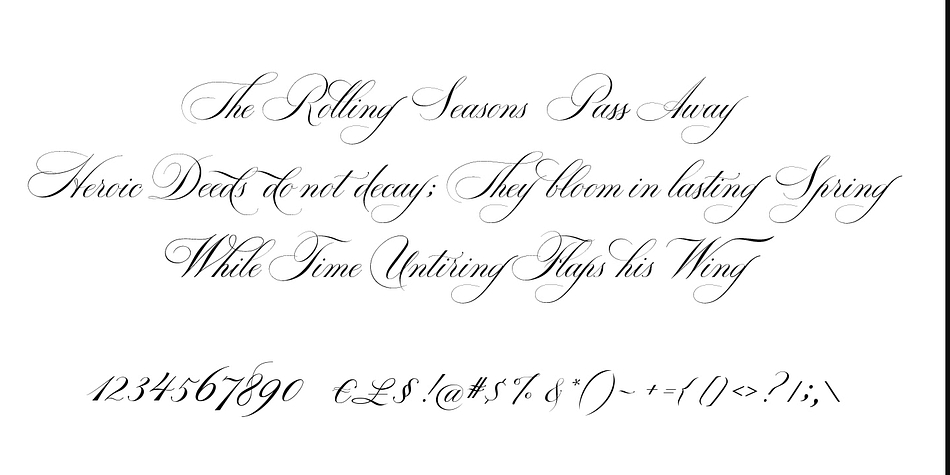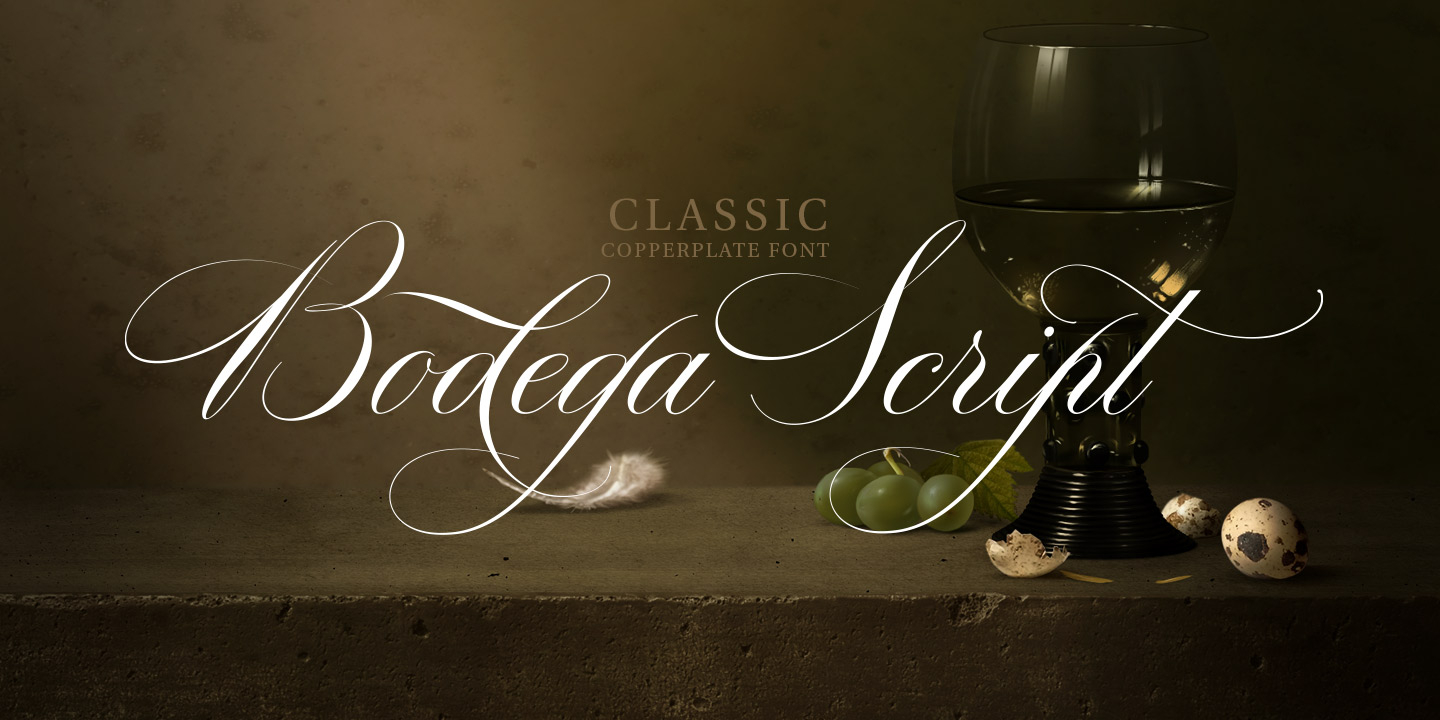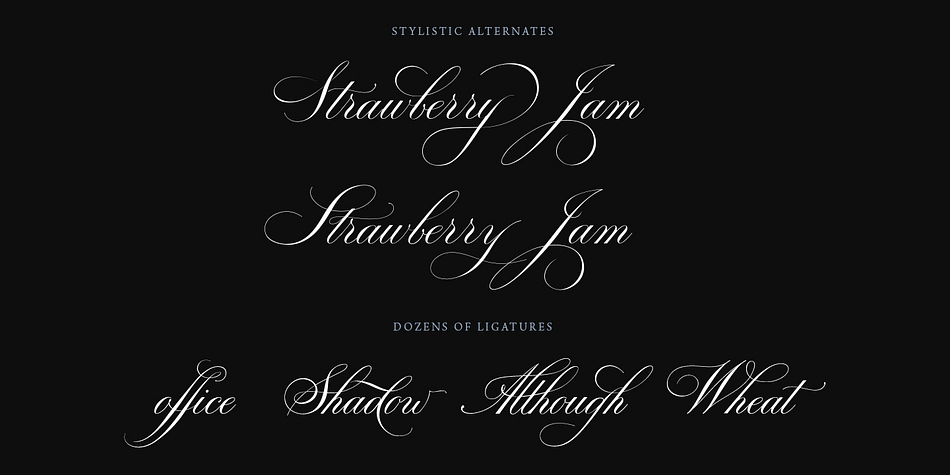
Bodega Script is a script font published by vatesdesign.
Elegant, curvy script, sort of contemporary typeface with classic roots. It is a display font meant for logos, fashion labels, food packaging designs, especially wine labels. Actually a lot of good wine was consumed while crafting this type. The font is heavy on ligatures, as there are a lot of fancy letter connections. Also I offer a decent amount of stylistic alternatives for many letters.